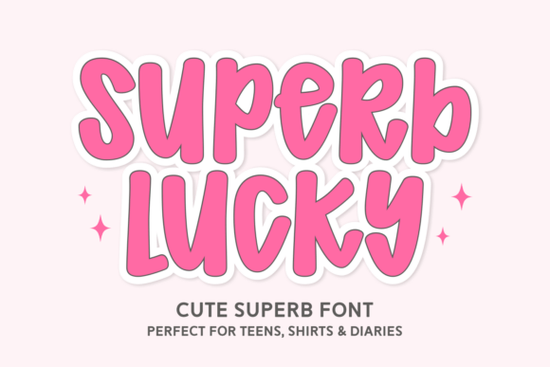
If you’ve ever wanted to capture the casual charm of a candy shop window mixed with a free-spirited boho vibe, Superb Lucky might become your new go-to display font. This playful typeface blends a handwritten feel with bold, bubbly letters that stand out on everything from digital planner stickers to summer-themed t-shirts. It’s especially handy for crafters, print-on-demand sellers, and small business owners who need something both friendly and eye-catching.
What makes Superb Lucky different from other handwritten fonts?
Superb Lucky isn’t just another casual script. It borrows a wavy, retro 70s energy and wraps it in a maximalist package that feels modern yet nostalgic. The letterforms have a bouncy, candy-like shape, but they stay highly readable even at smaller sizes. That balance means your message stays clear on logos, merchandise, and social media thumbnails. Unlike overly formal or delicate scripts, this font feels approachable and works beautifully for casual branding, school projects, and YouTube graphics. The integrated multilingual support also sets it apart you can craft messages in English, Spanish, French, and many other languages without losing the font’s personality.
How can I use Superb Lucky for print-on-demand and crafts?
This font shines on physical products. The bold, rounded shapes are easy to weed and press, making it a favorite for print-on-demand sellers and crafters alike. Here are a few places where it feels right at home:
- Stickers and decals – the bubbly letters stay crisp and playful.
- T-shirt prints – perfect for summer camps, birthday parties, or fun sayings.
- Mugs and totes – the friendly vibe adds a personal touch to gift items.
- Digital planners and journals – gives headers a handwritten, analog feel.
- Party decor – signage, cupcake toppers, and banners that match a candy theme.
Because of the included SVG and PNG font styles, crafters using Cricut or Silhouette machines can drop the designs straight into their software without extra tracing. The colored versions open the door to vibrant layered projects with zero effort.
Does this font support multiple languages?
Yes, Superb Lucky includes an extensive character set that covers most Latin-based languages. Whether your audience reads English, Spanish, French, German, Italian, Portuguese, or Scandinavian languages, the accents and special characters look natural and well-kerned. That makes it a safe choice for international shops, bilingual event materials, and community projects where you don’t want to switch fonts mid-project.
Which design styles pair well with Superb Lucky?
Its candy-like sweetness makes it a great companion to several popular display font families. If your project leans into organic, crafty textures, combine it with handmade aesthetical display fonts for a cohesive, homemade feel. For an edgy contrast, distressed vintage display fonts add a rugged, timeworn backdrop that makes the bubbly letters pop. Going for a groovy party look? Pair it with grooven pop font styles to amplify the retro disco energy. And if you want to soften the visual impact, a subtle weathered font style used as a background texture can ground the composition without distracting from the main message.
Is Superb Lucky suitable for branding and logos?
Yes, but with some nuance. The font’s friendly, approachable personality works wonderfully for kid-focused brands, bakeries, coffee shops, creative studios, and any business that wants to feel warm and playful. Its bold shapes stay legible in social media profile icons and shop signs. However, for luxury or minimalist corporate identities, it may feel too whimsical. If your brand story leans casual, joyful, or a little nostalgic, this font can become a recognizable part of your visual identity especially when you use the SVG version to lock in a signature color scheme.
Quick tips for working with Superb Lucky
- Pair with a simple sans-serif for body text, so the display lettering stays the star.
- Use the SVG style for bold, colorful print-on-demand items without extra coloring steps.
- Test your phrase in multiple languages early the multilingual support handles accents gracefully.
- Keep contrast high on busy backgrounds; the thickened stroke helps readability, but light-on-dark or dark-on-light is still best.
- Combine with weathered textures from weathered font packs to give a trendy, vintage edge to party invites.